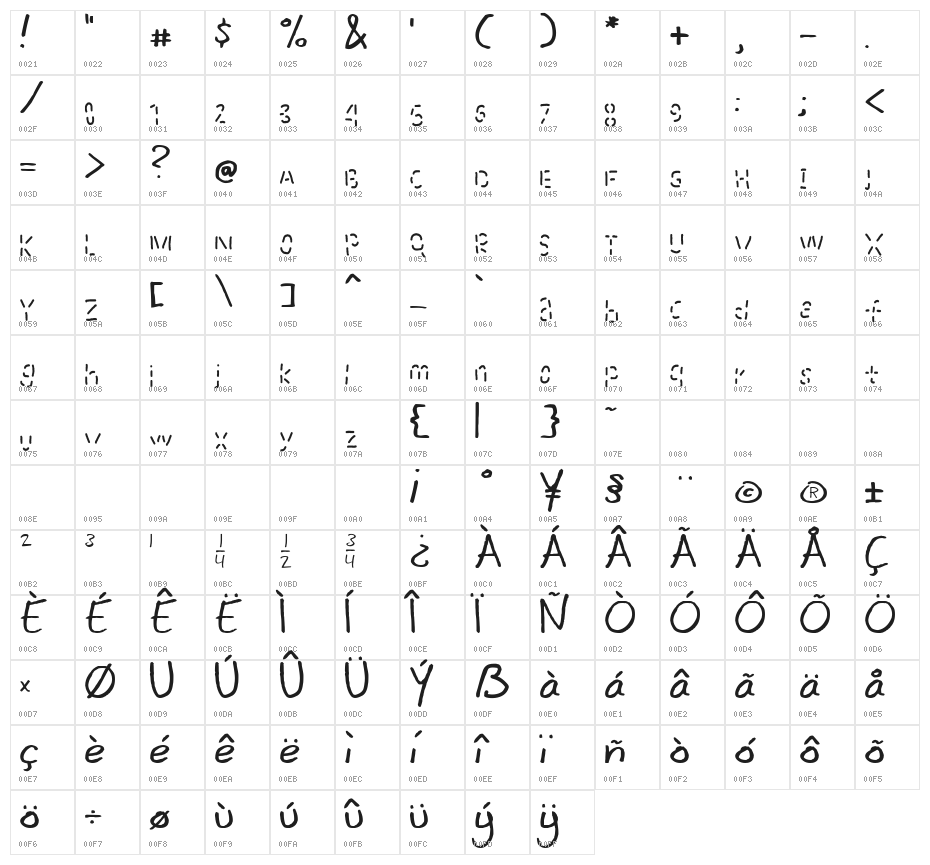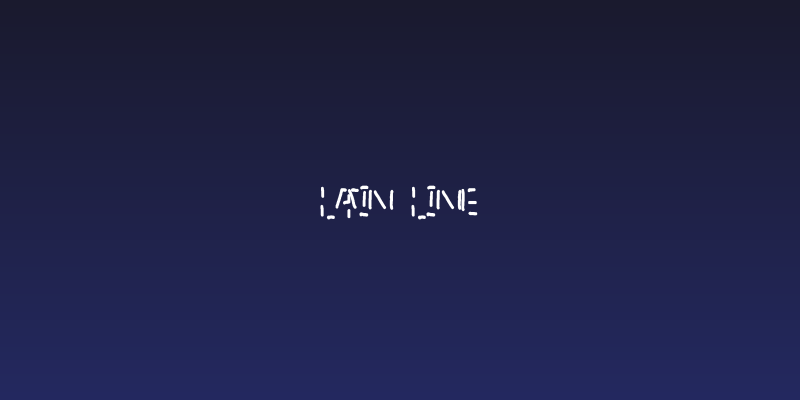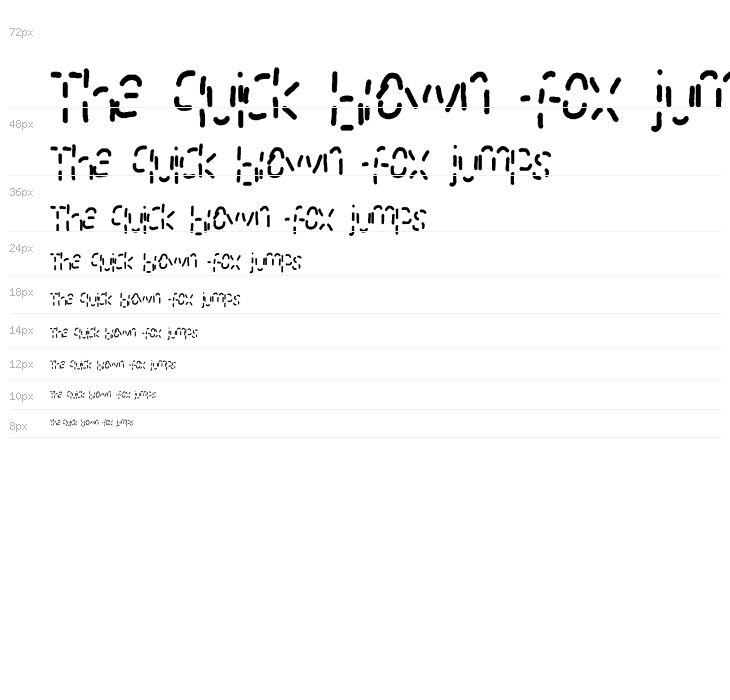
Latin Line Font
Latin Line Description
This font features a unique, stencil-like design with a modern twist. Each character is composed of distinct, disconnected segments that create an industrial and futuristic aesthetic. The uppercase and lowercase letters maintain a consistent style, with clean lines and geometric shapes. Numbers and special characters follow the same design principles, ensuring uniformity across all elements. The font's unconventional appearance makes it stand out, offering a bold statement in any design project.
| Proposed Projects | Ideal for branding, posters, and digital media where a modern, industrial look is desired. |